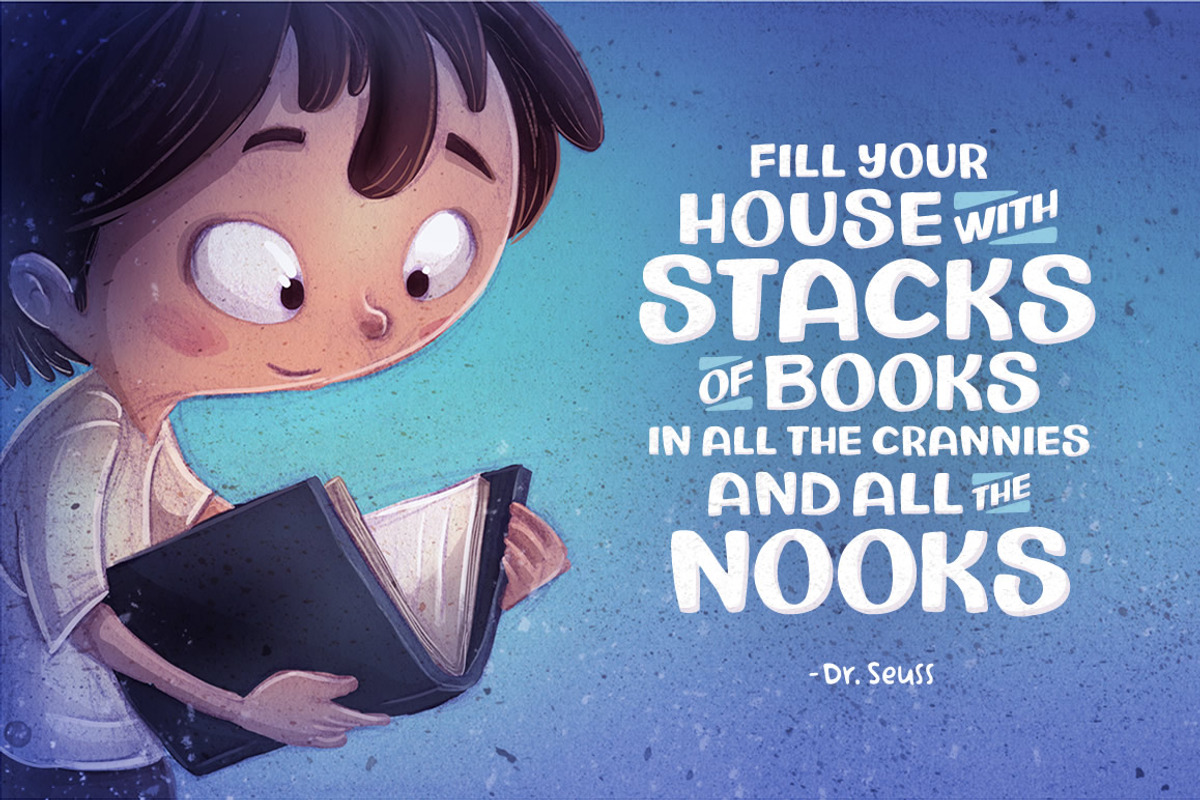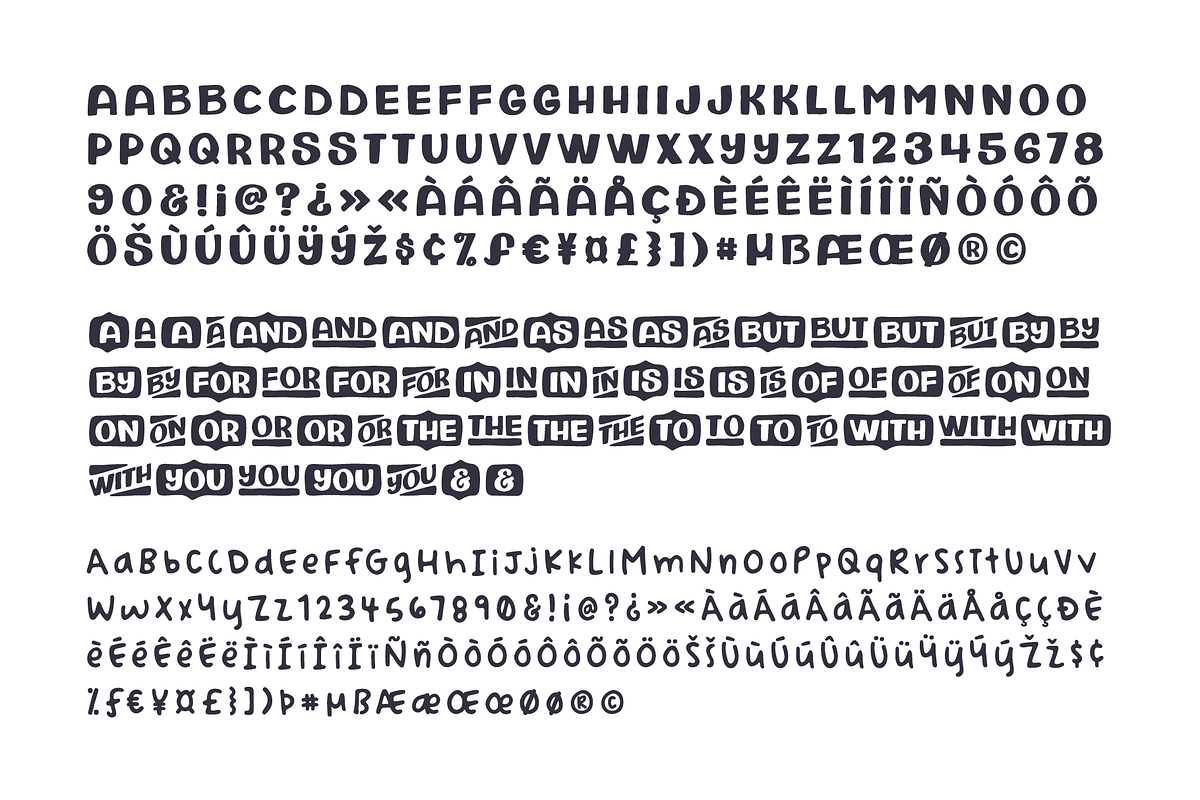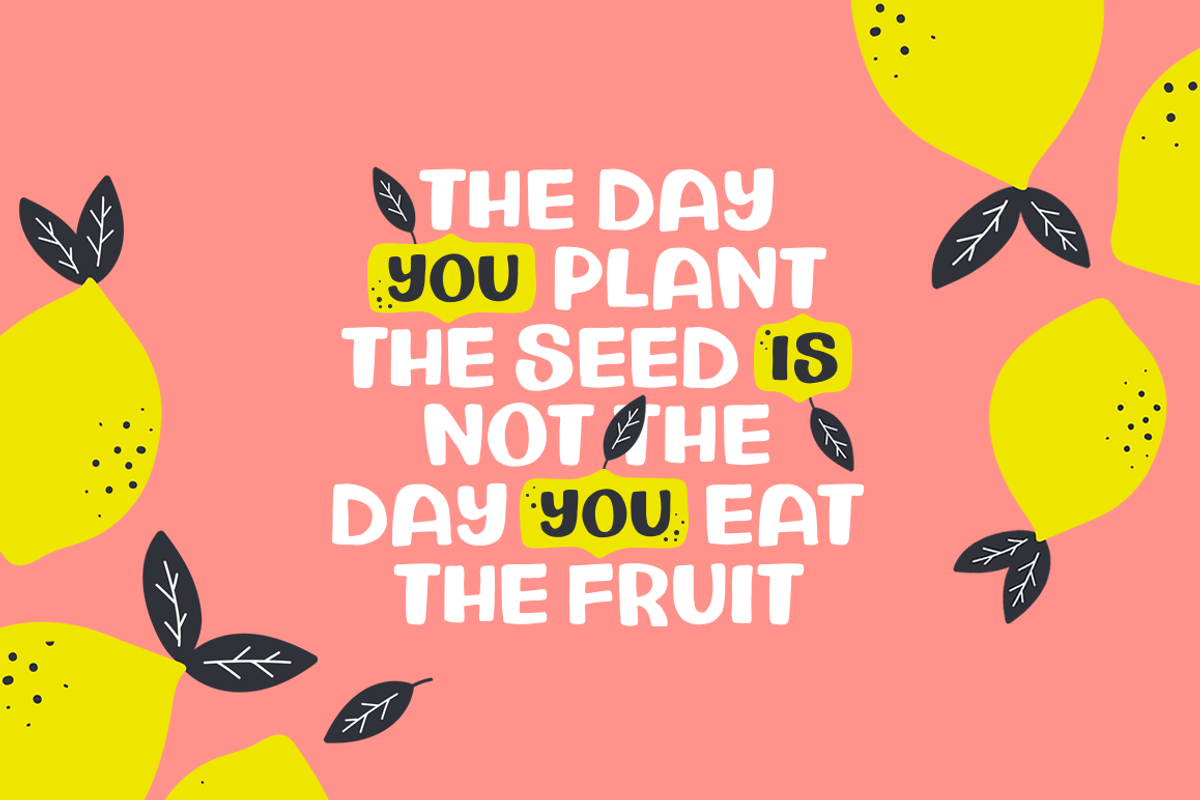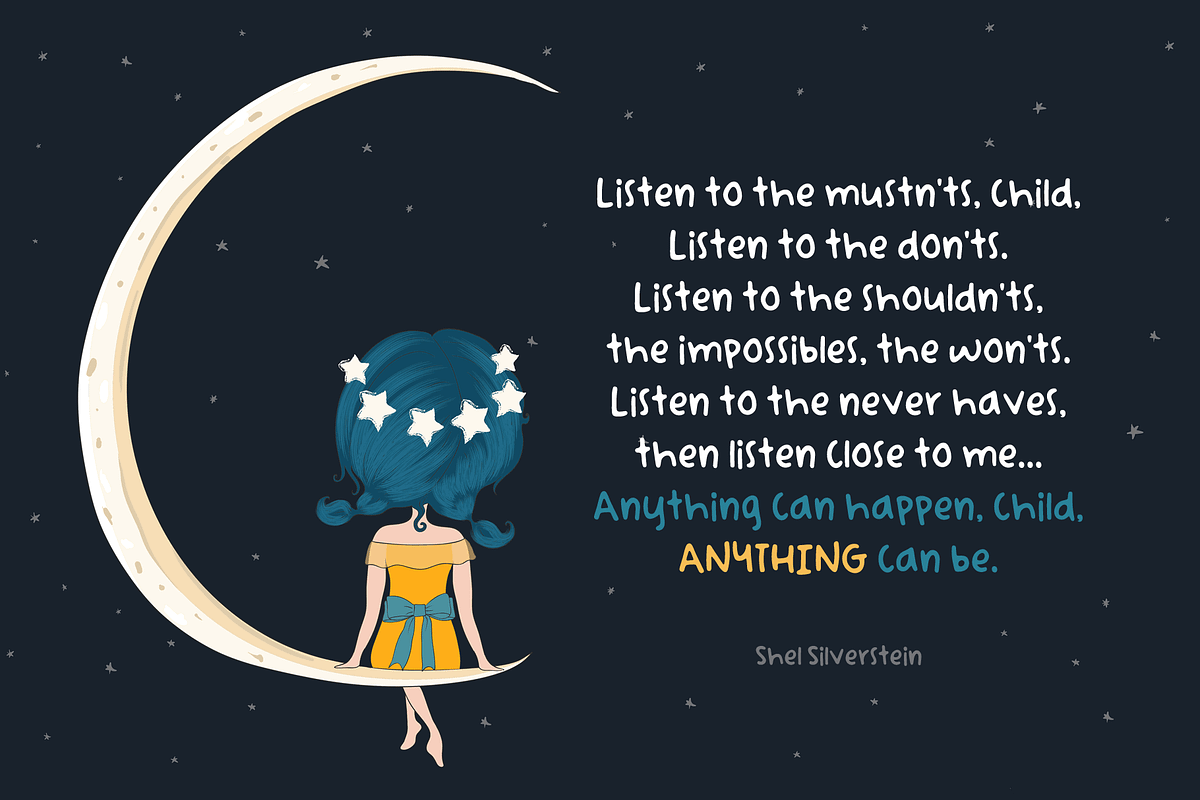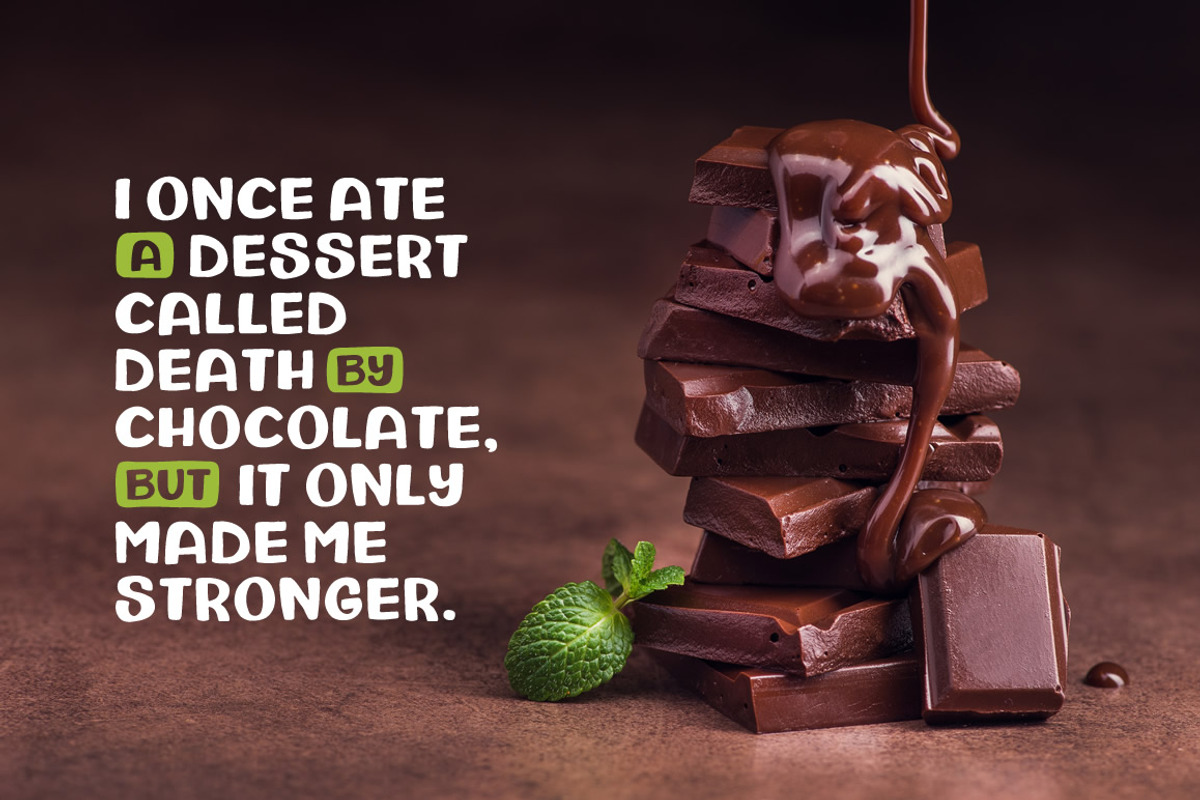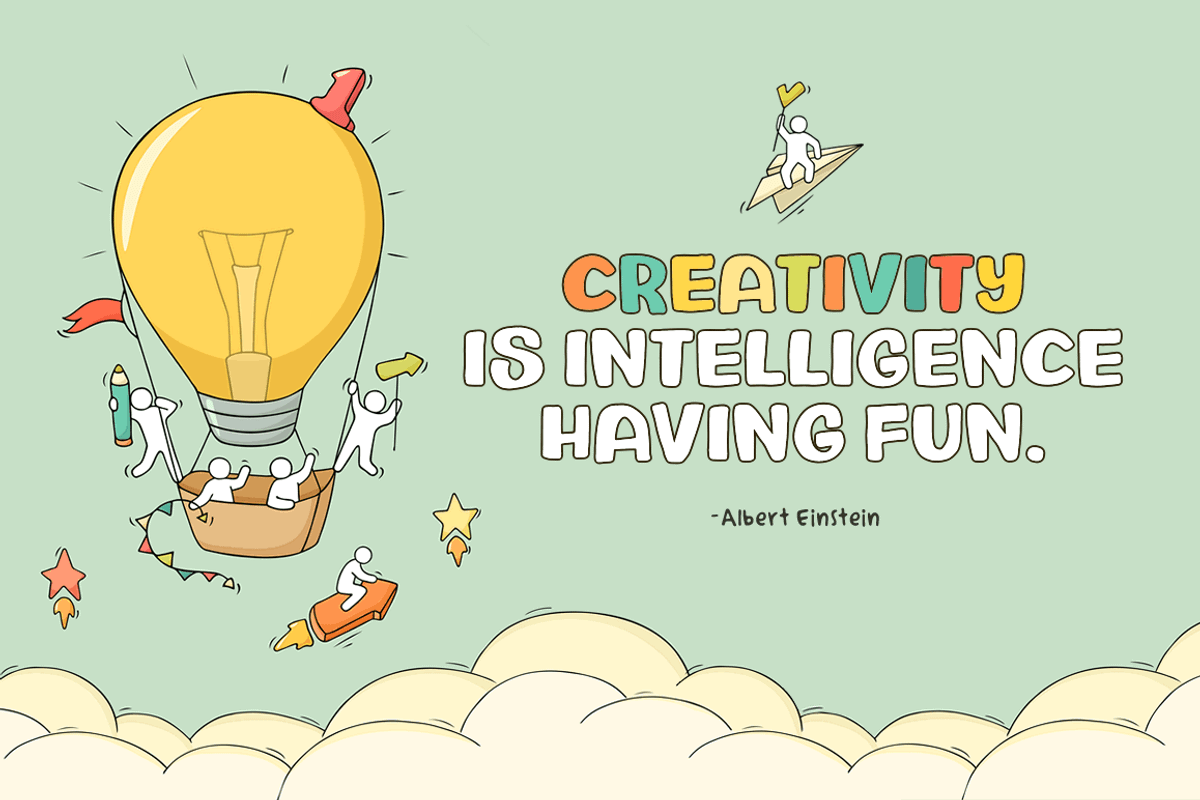
Charley and Beau Font Duo
Meet Charley and Beau! A charming font duo that combines bold block letters with a simple hand-written sans. It also includes a set of catchwords.
Charley and Beau Font Duo by Denise Chandler fits naturally into Branding, posters, packaging, typography.